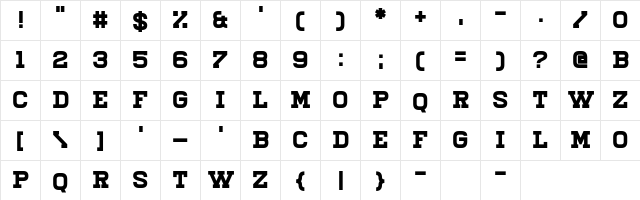
Illiead Regular
| Designer | Allison James |
Design Context for Illiead Typeface
Illiead offers clean, dependable letterforms without strong stylistic allegiance, making it a practical choice for designers who need flexibility.